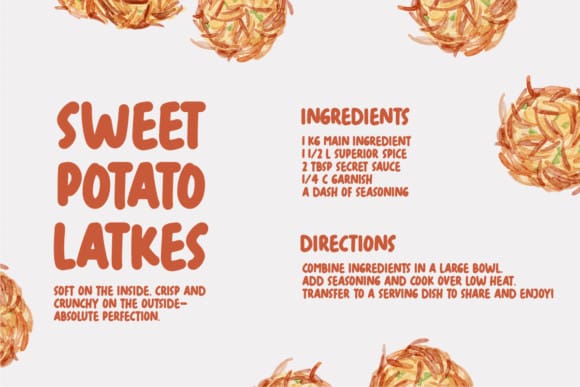
Skintones Display Font
Skintones Display Font is a unique handwritten display font that captures beauty and diversity. Each character is meticulously crafted to evoke the fluidity and natural flow of handwriting while maintaining a clean and polished appearance. With its elegant yet playful style, this font is perfect for a variety of projects, including branding, packaging, social media graphics, and more.